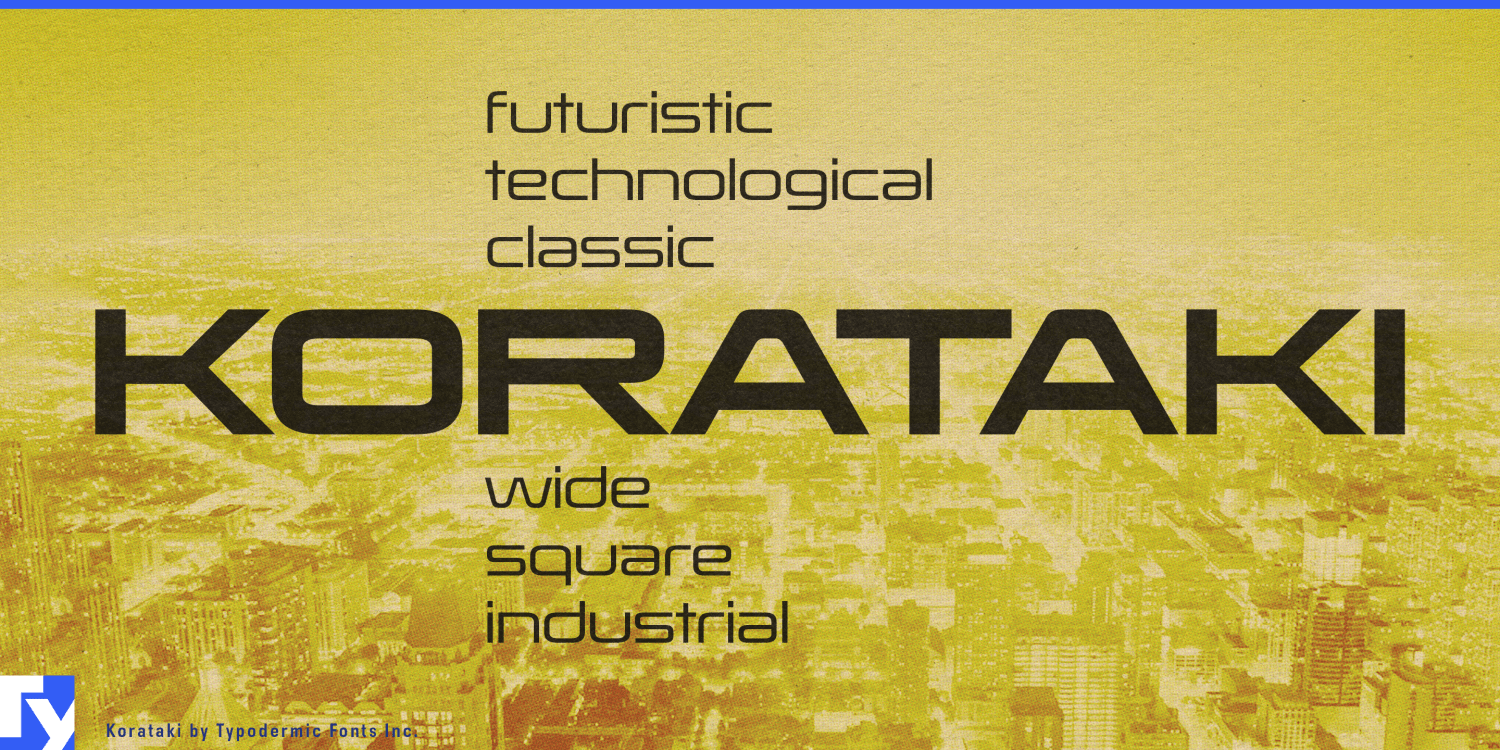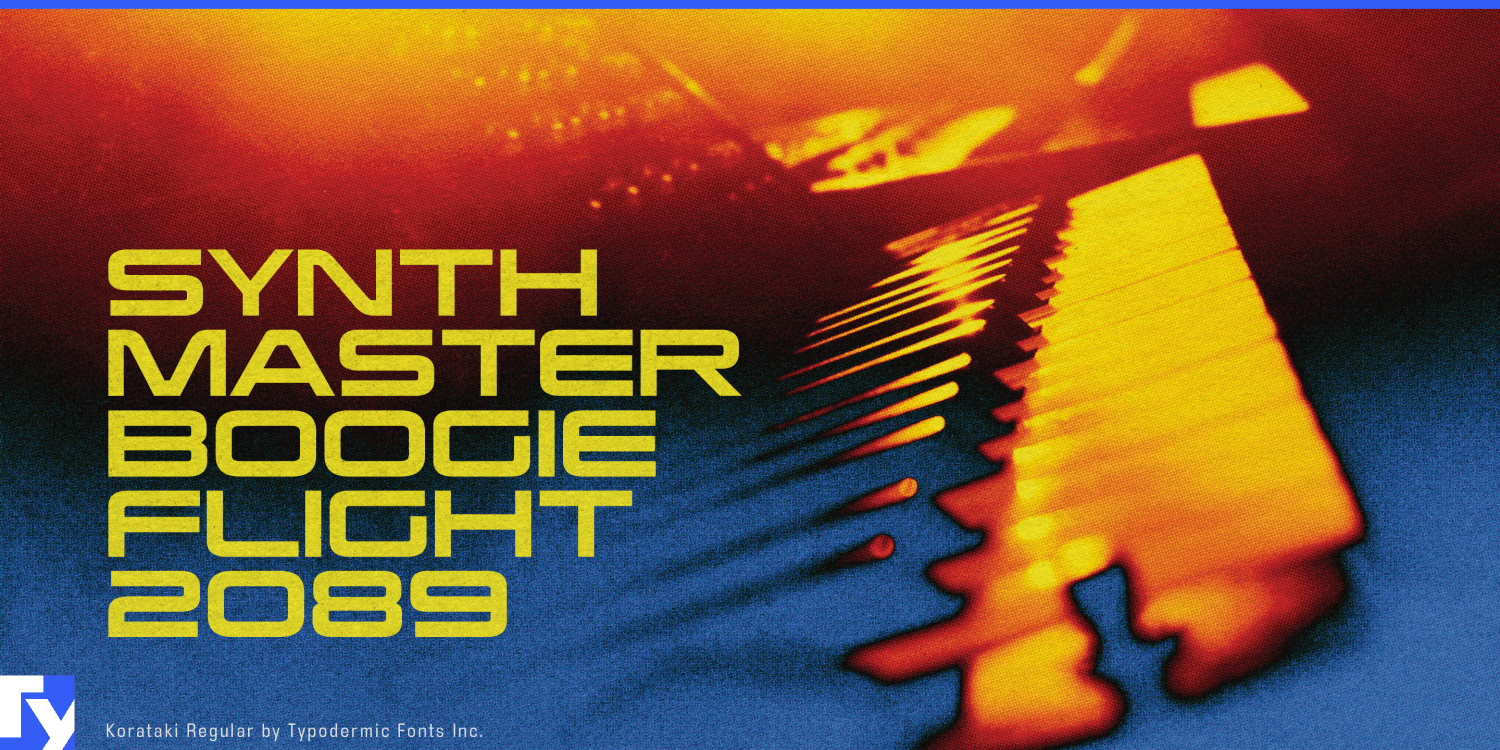
About Korataki
Korataki: where the future of yesterday meets the vanguard of tomorrow. This isn’t just a typeface—it’s a time-bending marvel that captures the essence of 1970s ultramodernism and propels it into the 21st century with breathtaking audacity.…